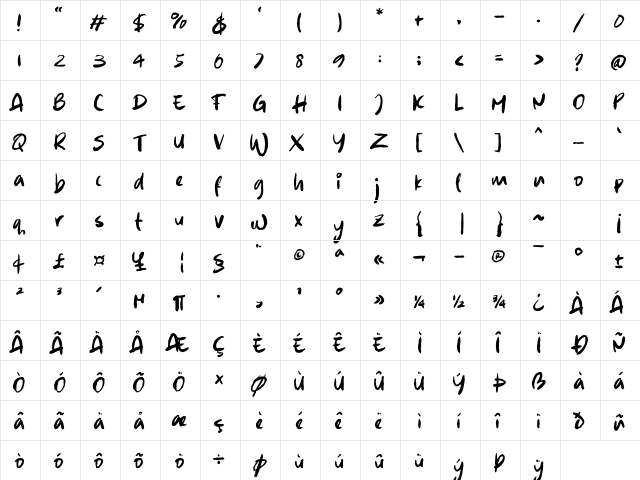
Wamatto Rough Regular
Design Context for Wamatto Rough Typeface
Wamatto Rough embraces imperfection — its rough, textured character adds raw authenticity to designs that want to feel lived-in and unconventional.
Suited to punk-influenced zines, underground music branding, streetwear, and raw, anti-corporate design.
Pro Tip: Pair Wamatto Rough with intentionally raw or lo-fi design elements. Fighting against it with overly polished surroundings will undermine its personality.